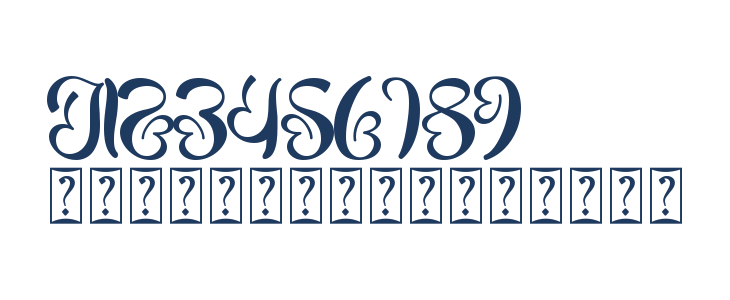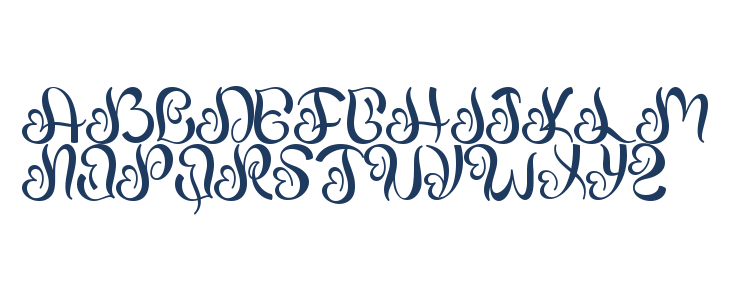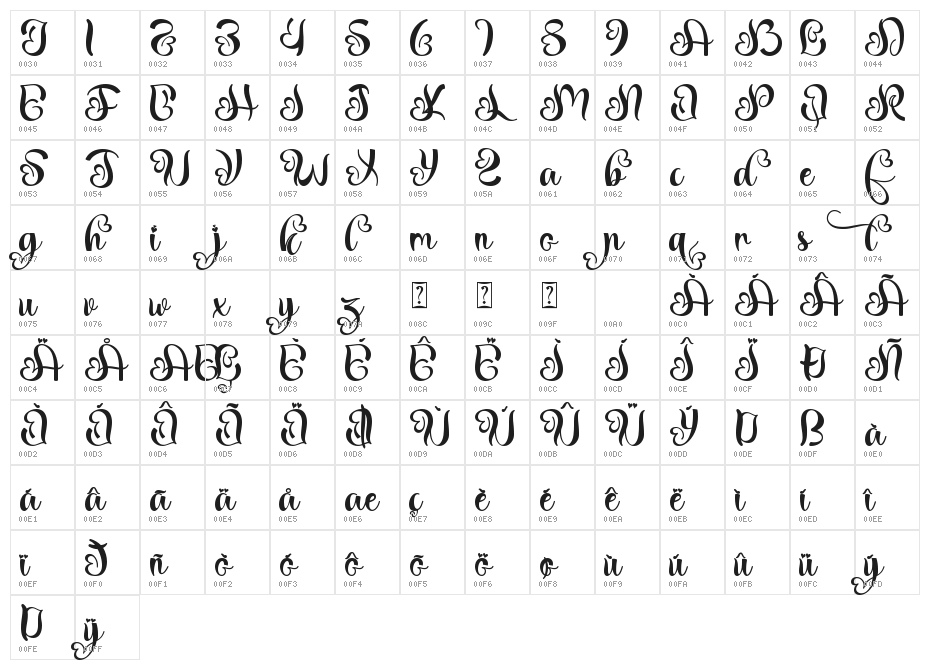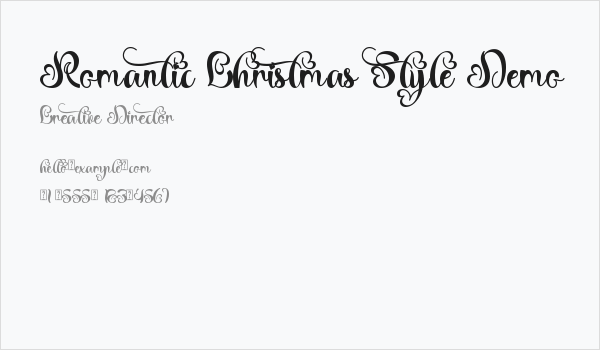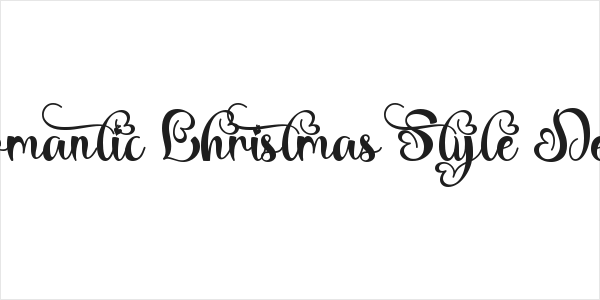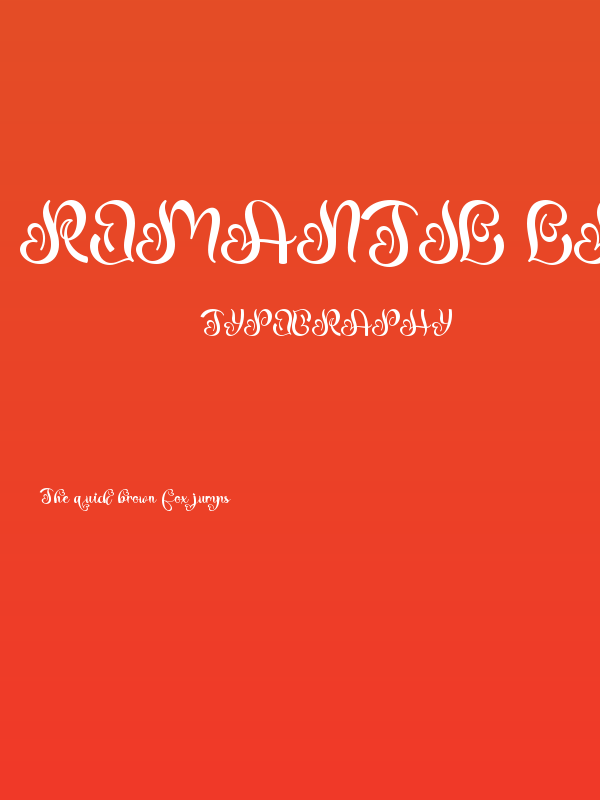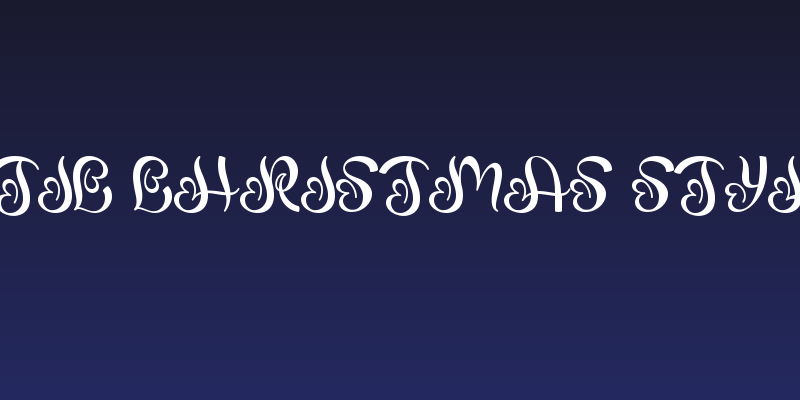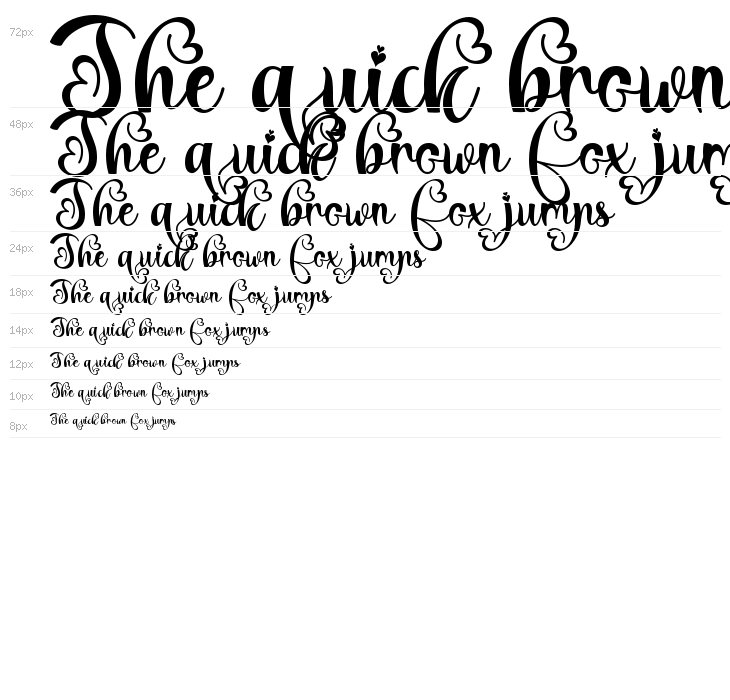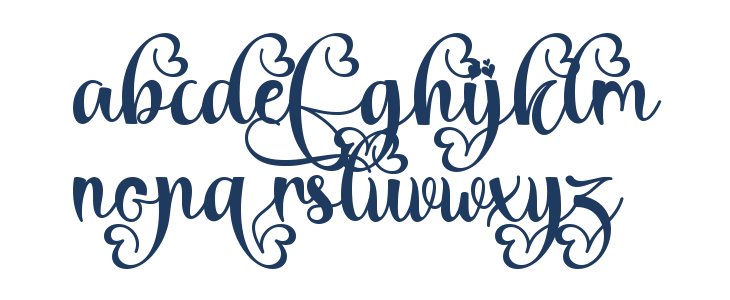
Romantic Christmas Style Demo Font
Romantic Christmas Style Demo Description
A highly decorative script font featuring elaborate swashes and heart-shaped flourishes integrated into each character, evoking a festive and romantic atmosphere. The letterforms are fluid and ornate, with consistent embellishments throughout uppercase, lowercase, and numerals.
| Overall Style | Decorative, Festive, Romantic |
| Use Case | Headlines, Invitations, Greeting cards, Logos |
| Proposed Projects | Holiday cards, wedding invitations, romantic event branding, festive packaging, decorative posters. |